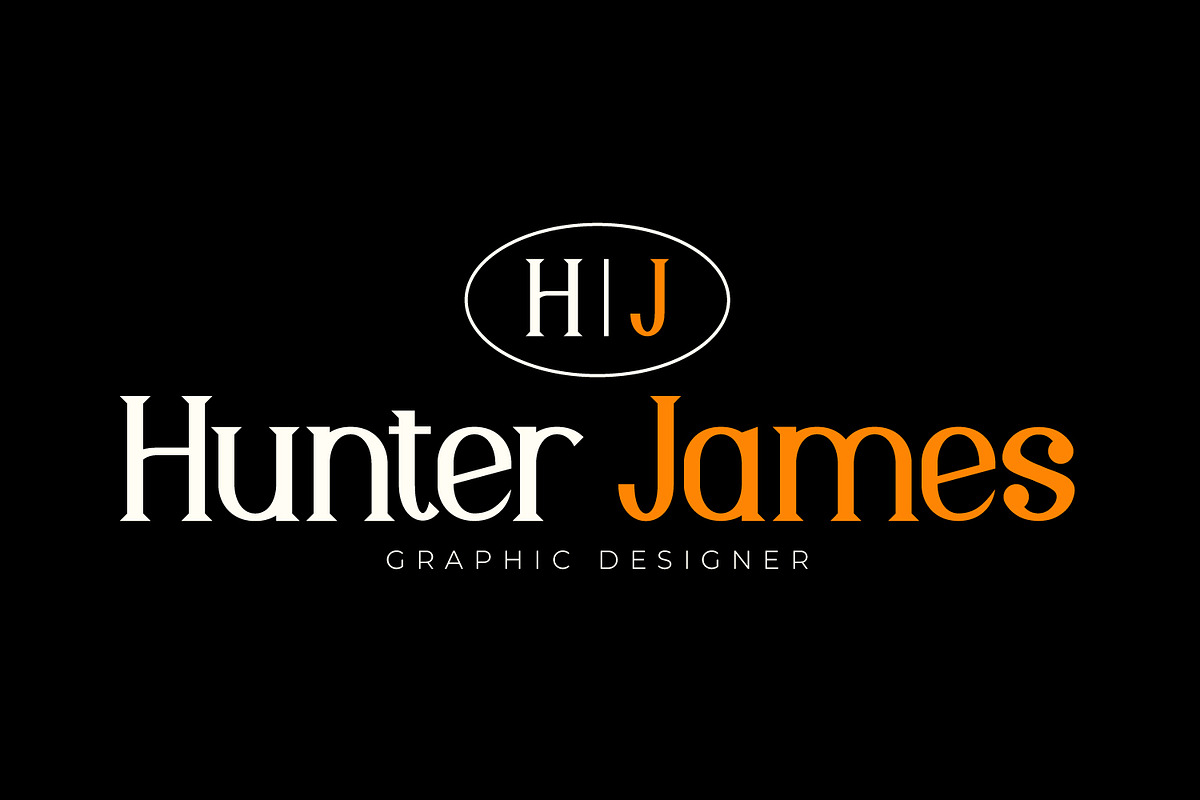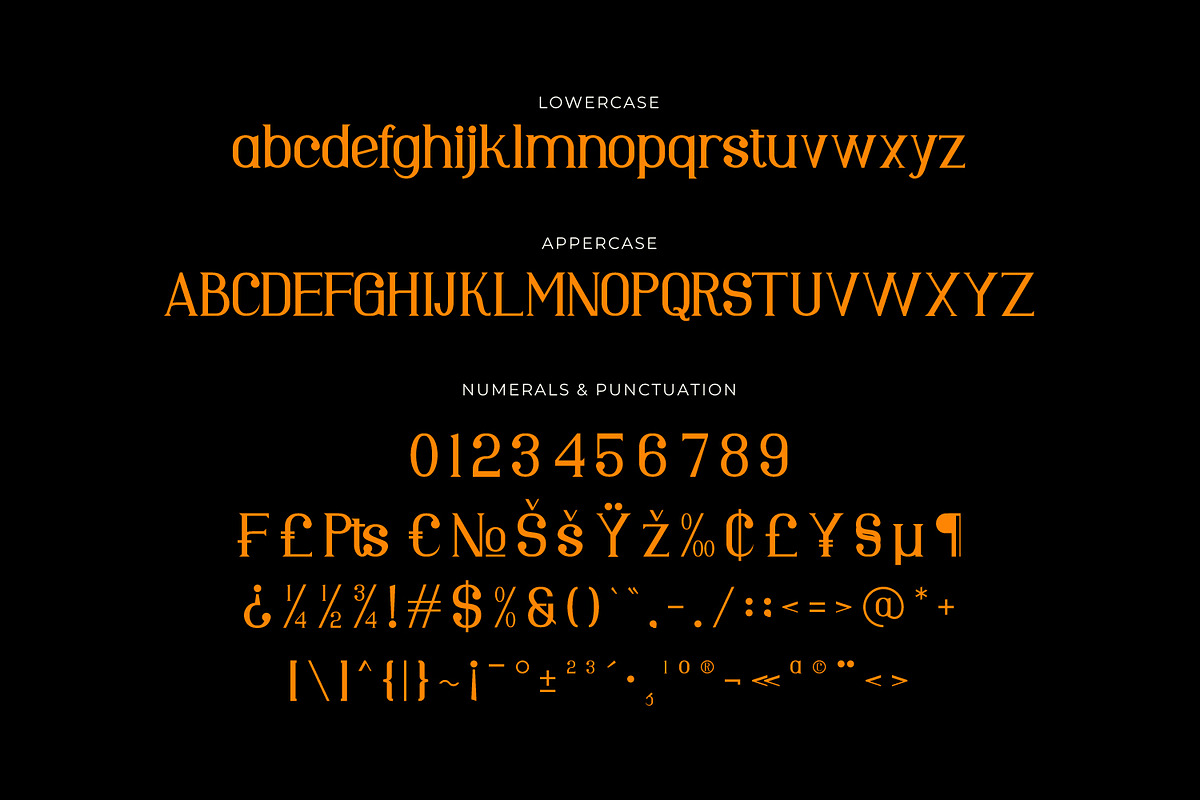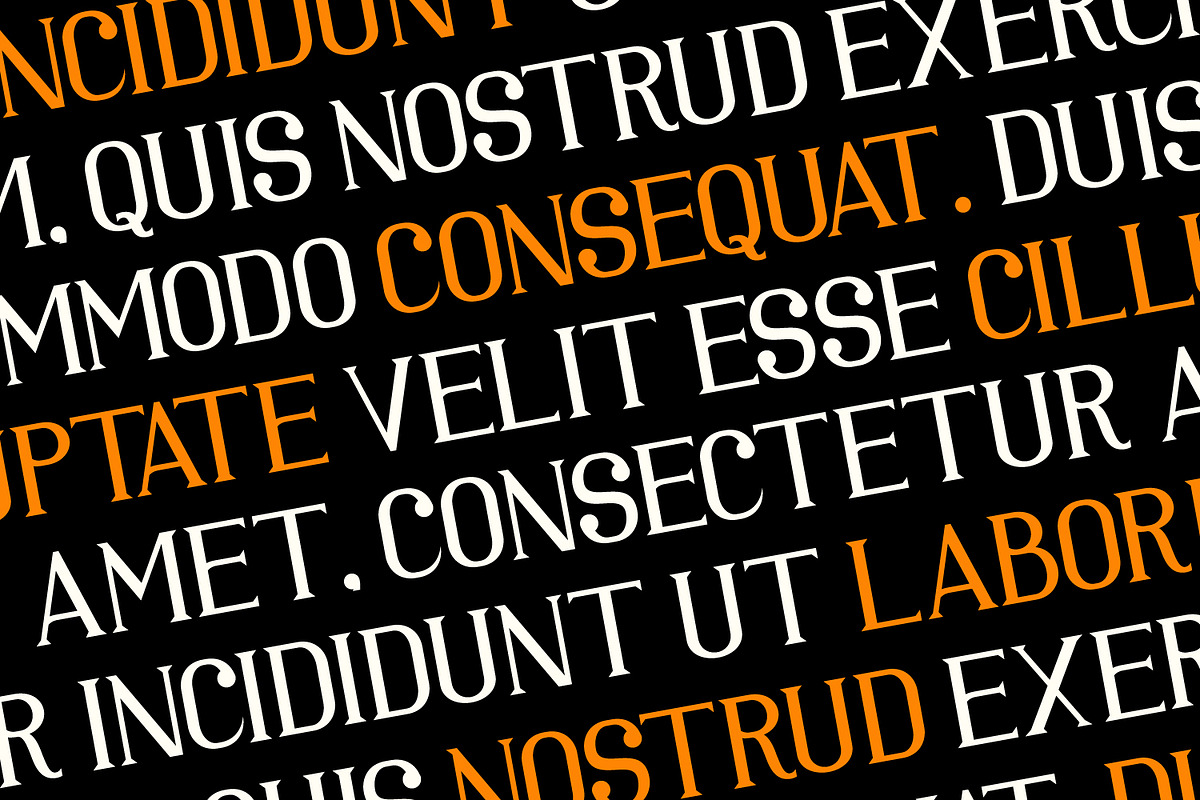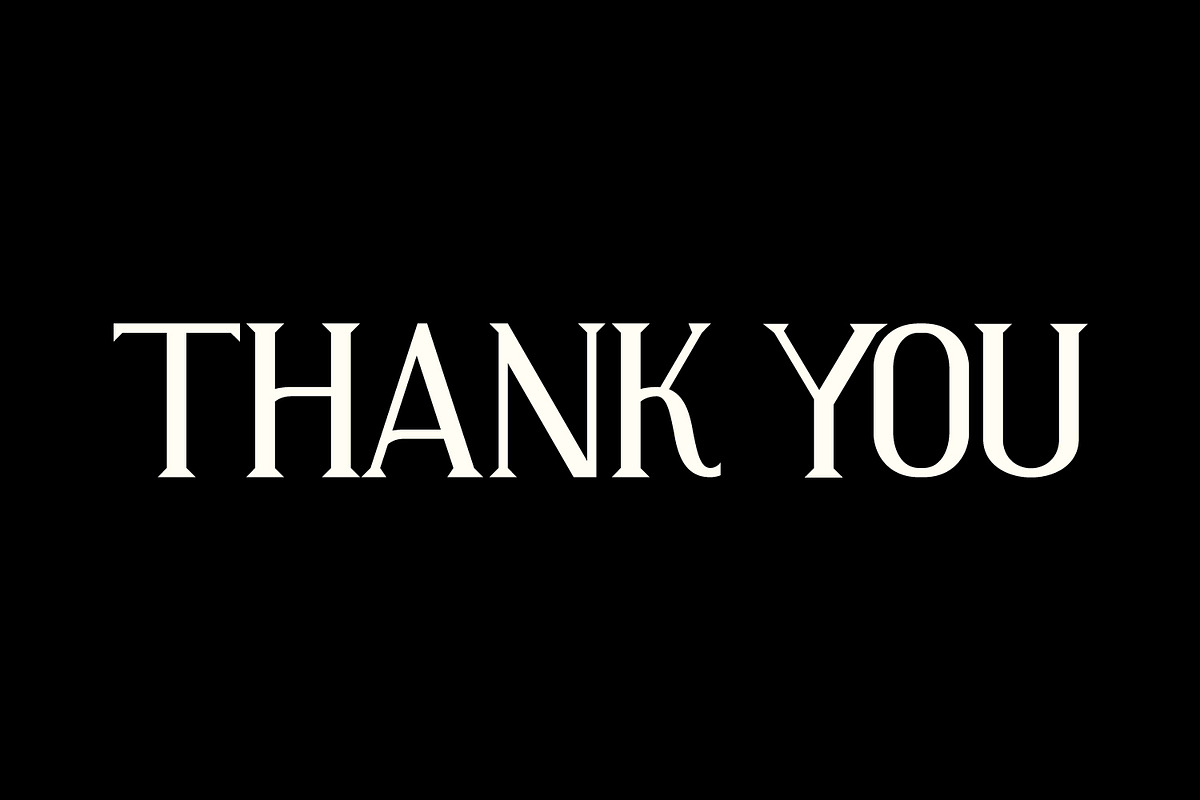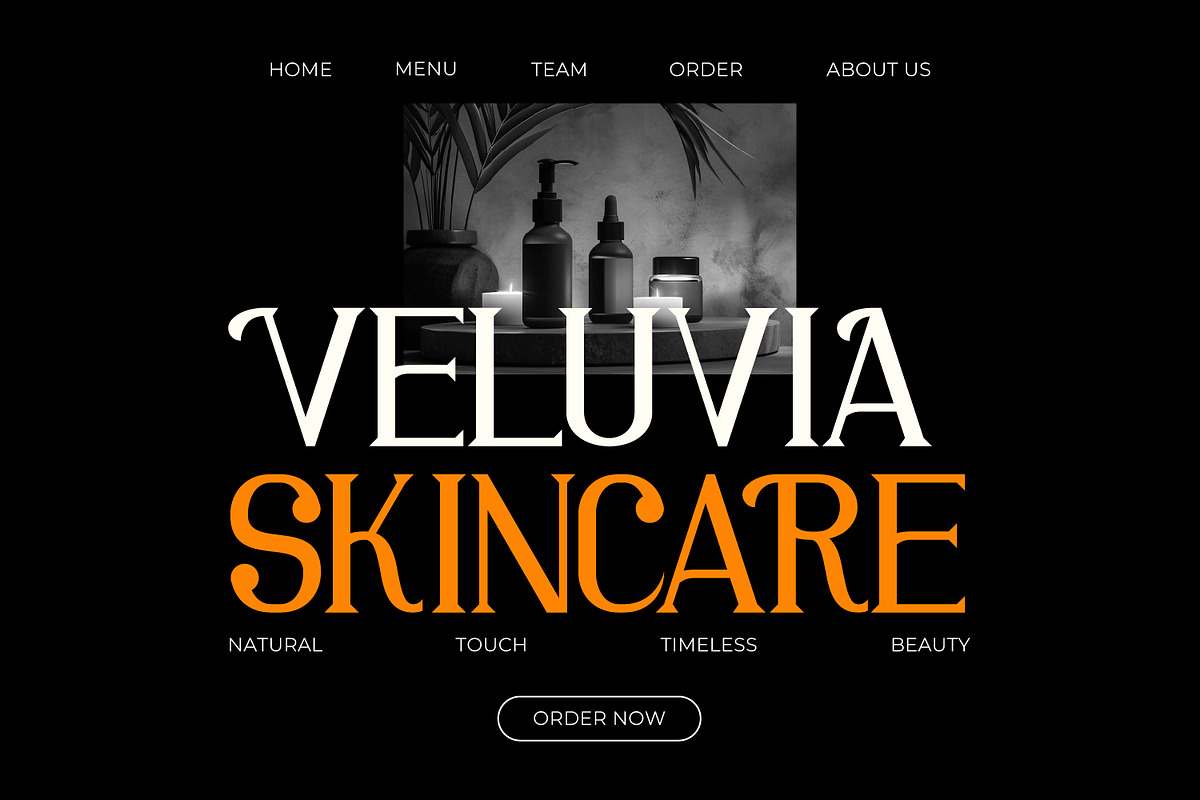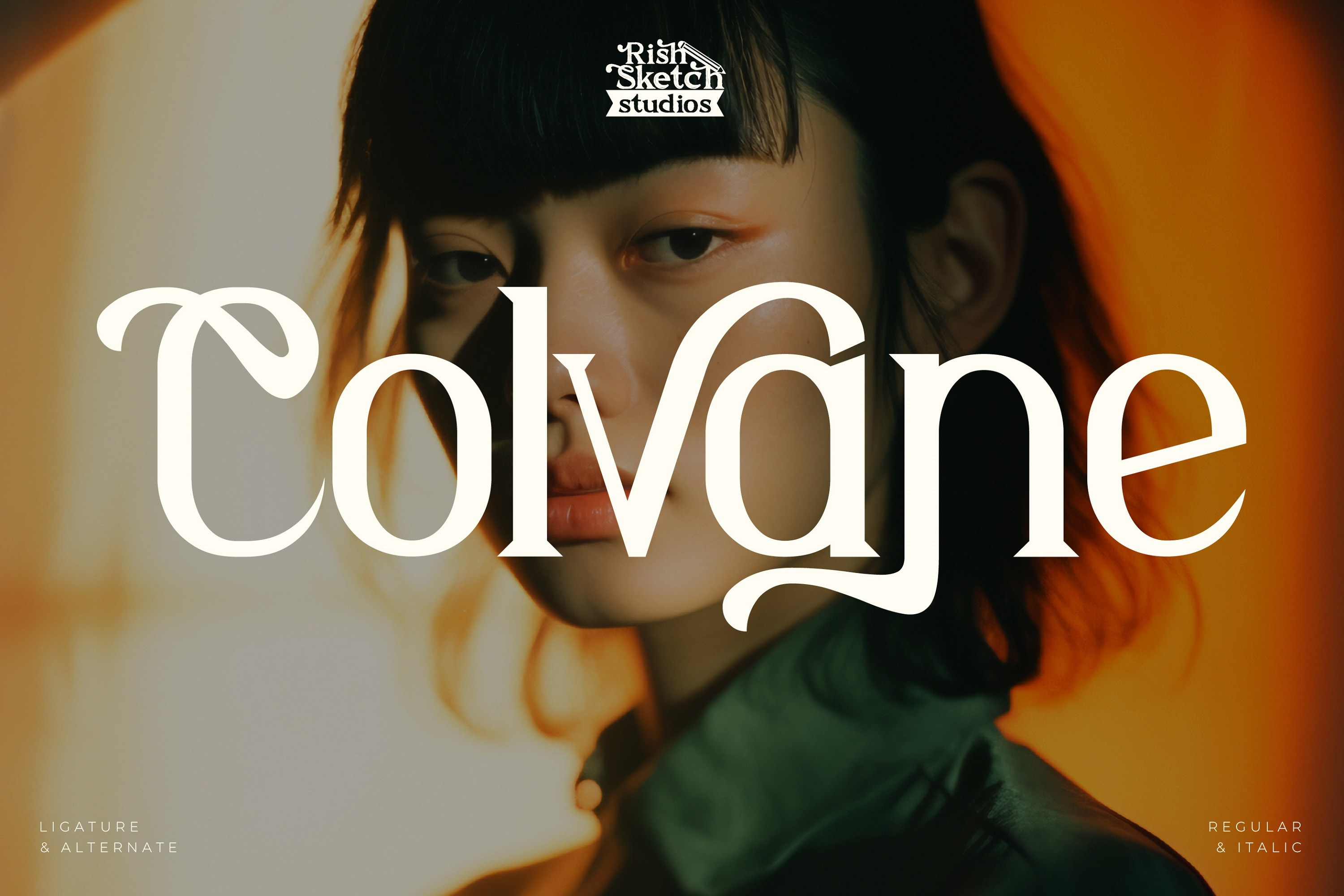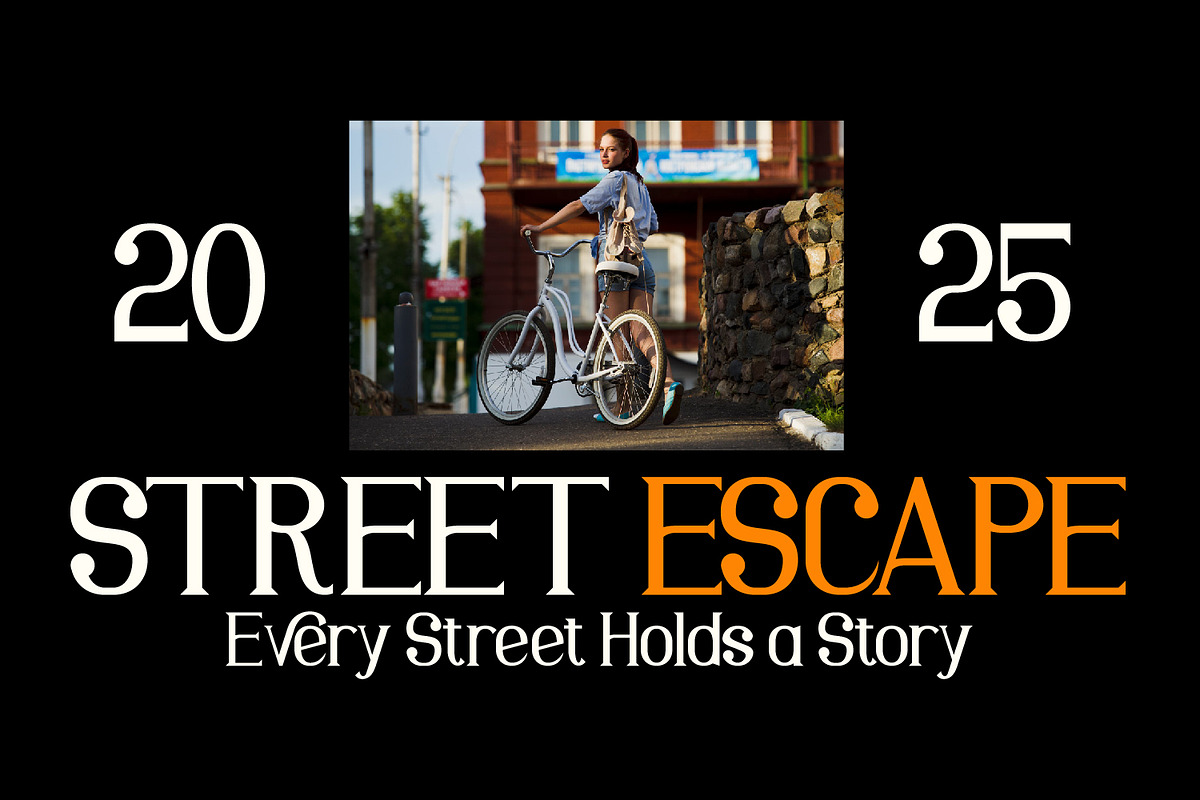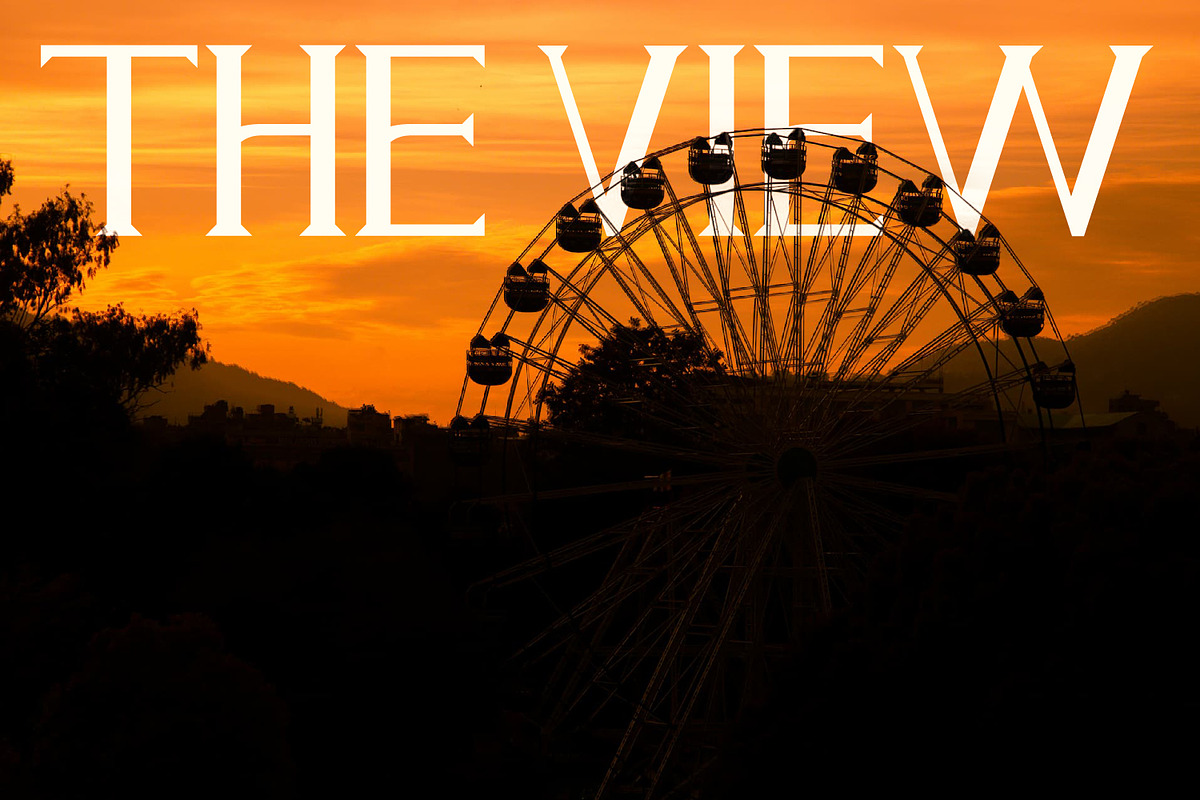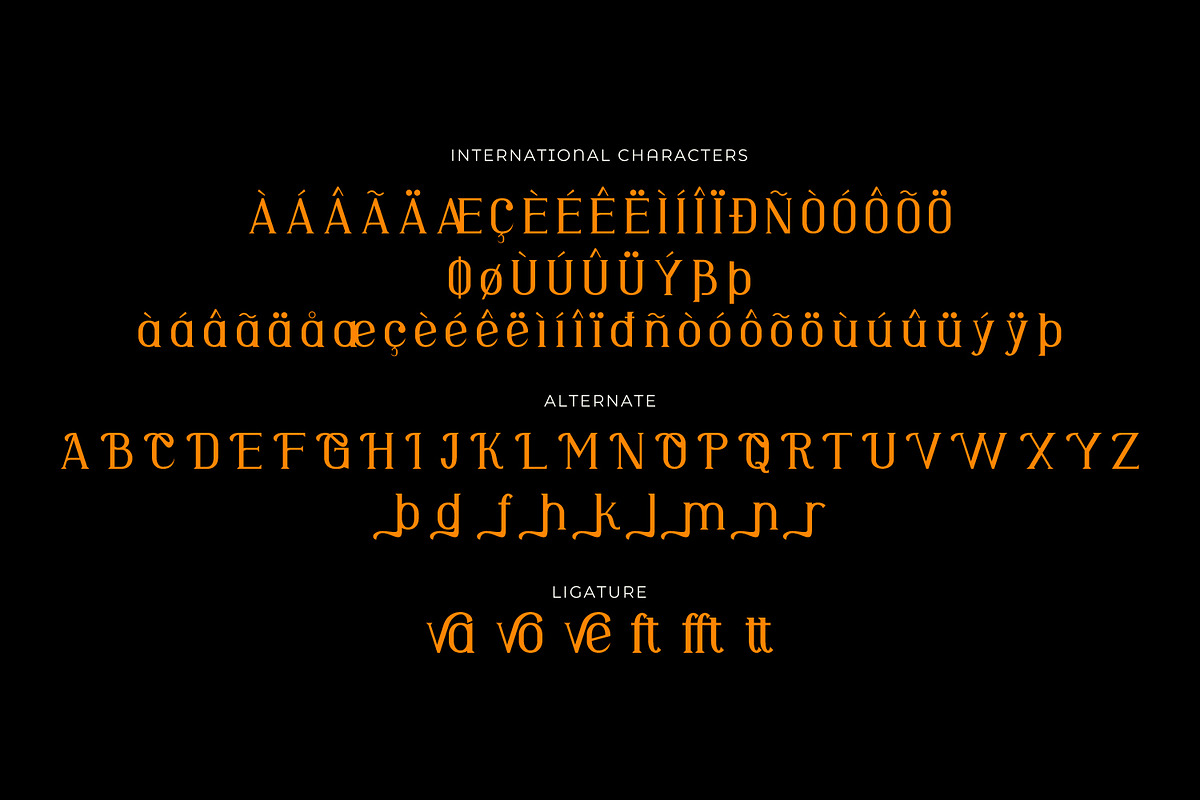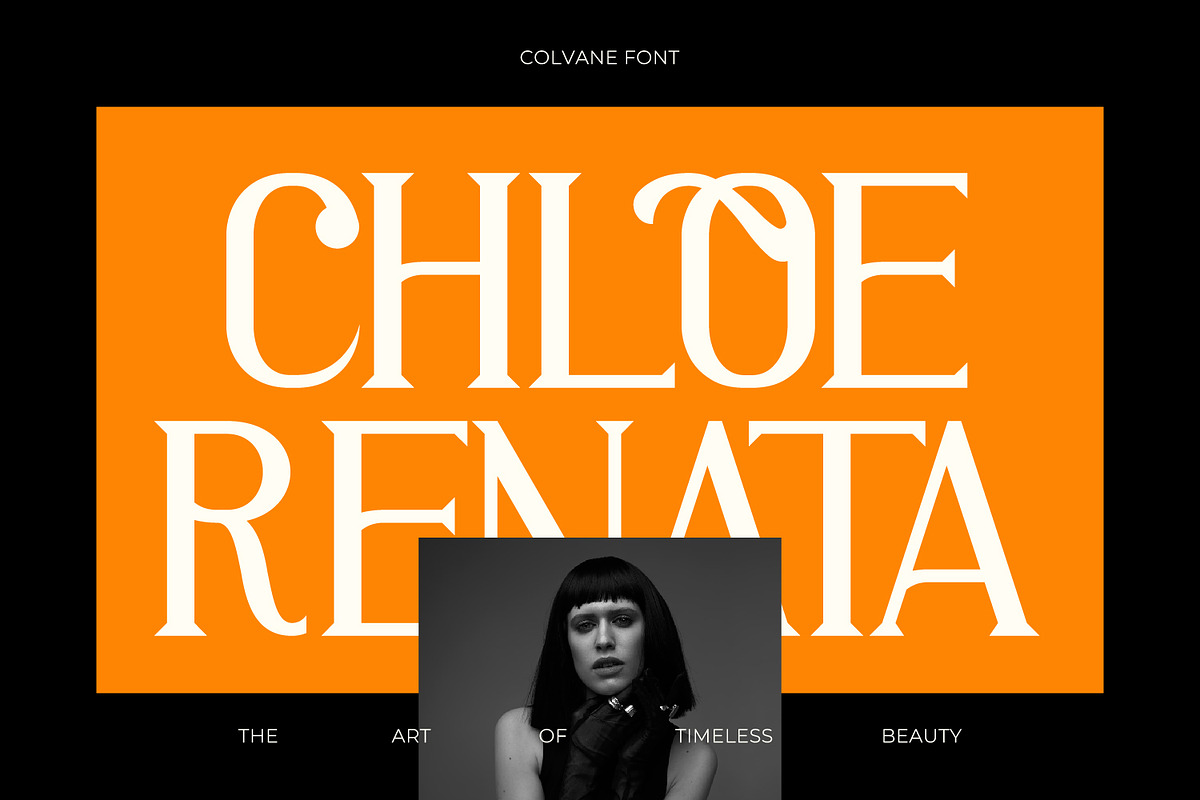
Colvane - Modern Serif Font
Colvane - Modern Serif Font, from Rishsketch Studios, is a premium Modern Serif Font, perfect for any project that requires a distinctive, and premium feel.
Ligature, Alternate & Multilingual